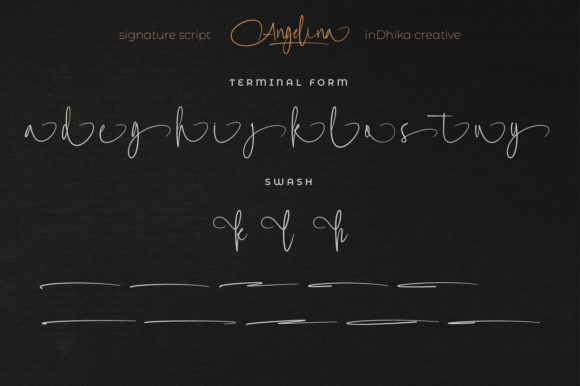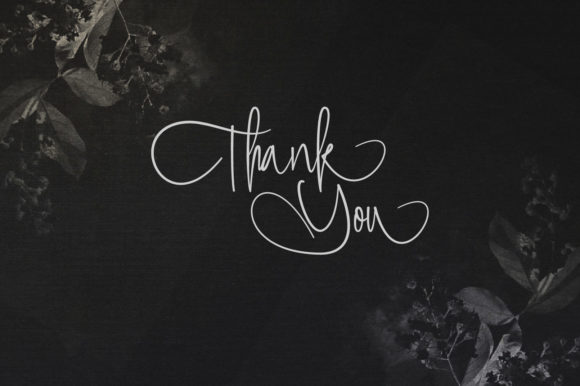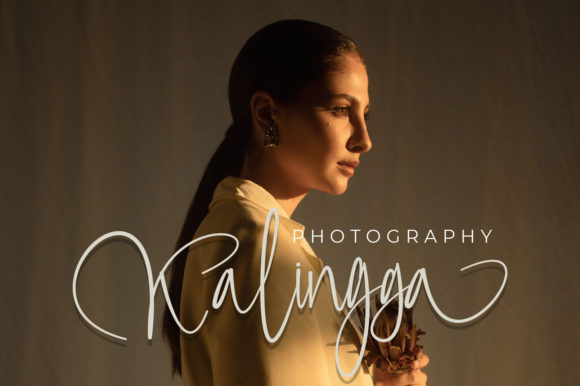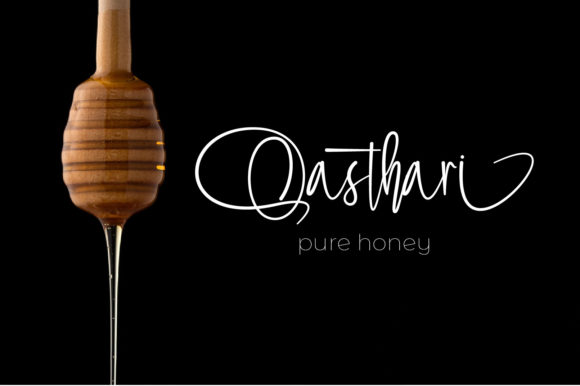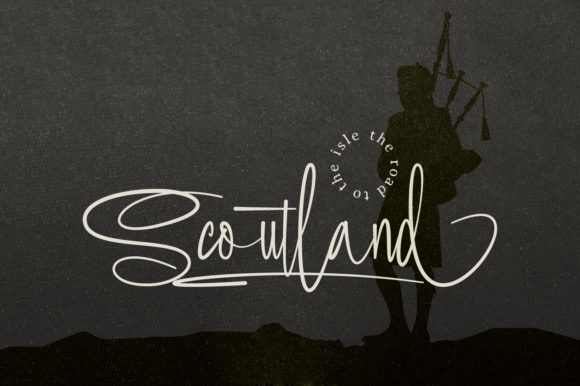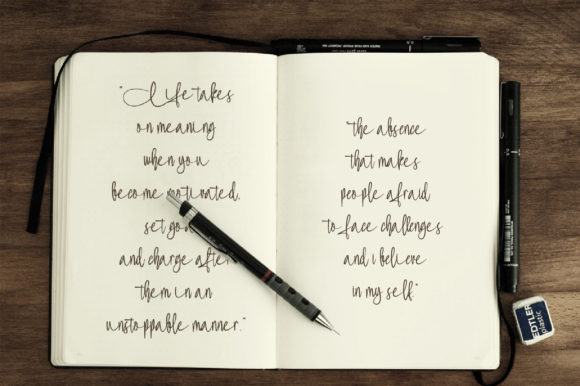
Angelina Font
About Angelina Font
Angelina is an elegant script font with a contemporary atmosphere and impeccable form, inspired by timeless classic calligraphy. This font is PUA encoded which means you can access all of the glyphs and swashes with ease!